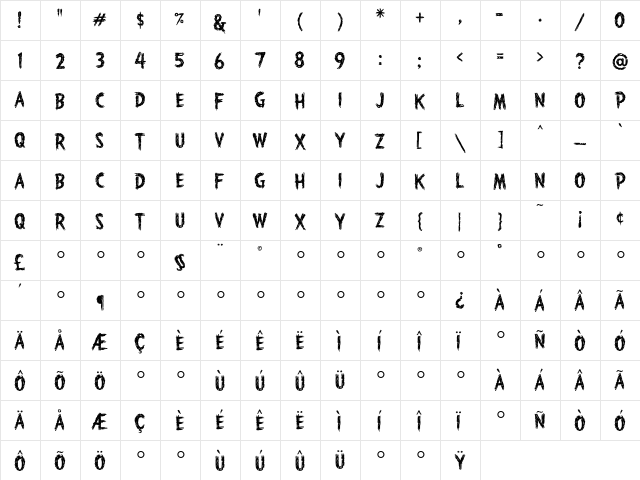
HauntedHouse Regular
Design Context for HauntedHouse Typeface
HauntedHouse is a composed and adaptable typeface that performs quietly and consistently across a wide range of design contexts.
Pro Tip: Use HauntedHouse in both headline and body roles to test its range before committing to a single application.